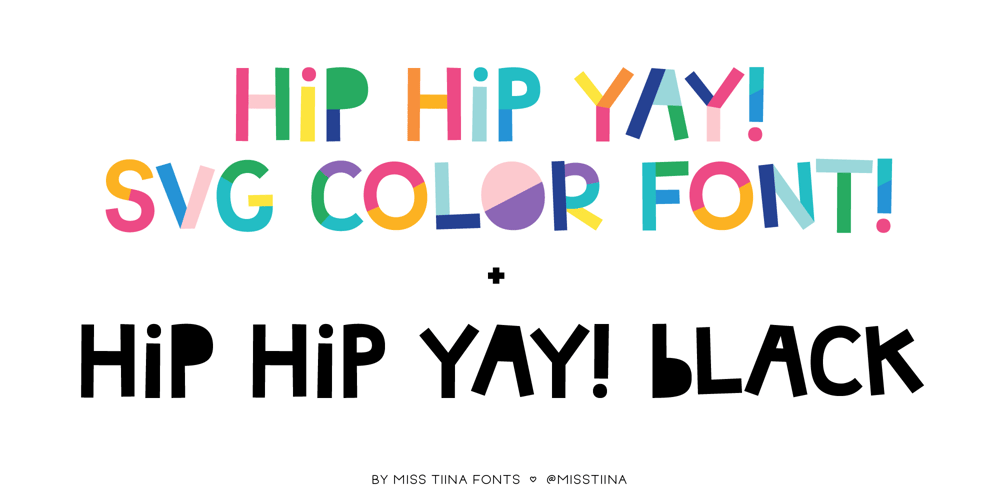
MTF Hip Hip Yay Font Family was designed by Tina Raparanta and published by Miss Tiina Fonts. MTF Hip Hip Yay contains 2 styles and family package options. Hip Hip Yay is a fun and quirky display color font capable of taking any product out of the ordinary! Use it on bold and bright creations such as banners, posters, covers, titles, magazines, etc.